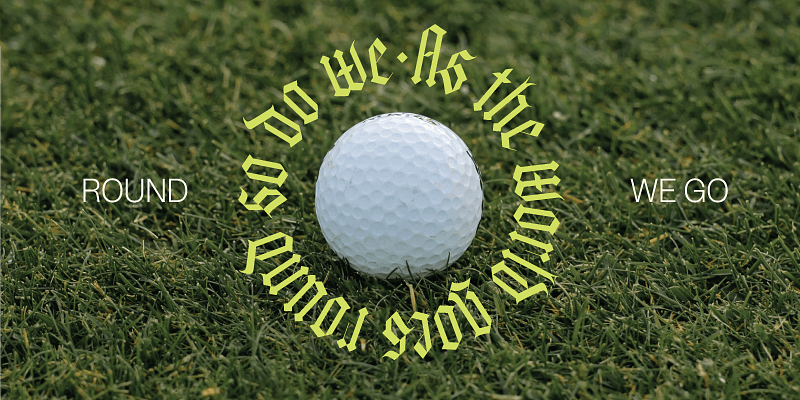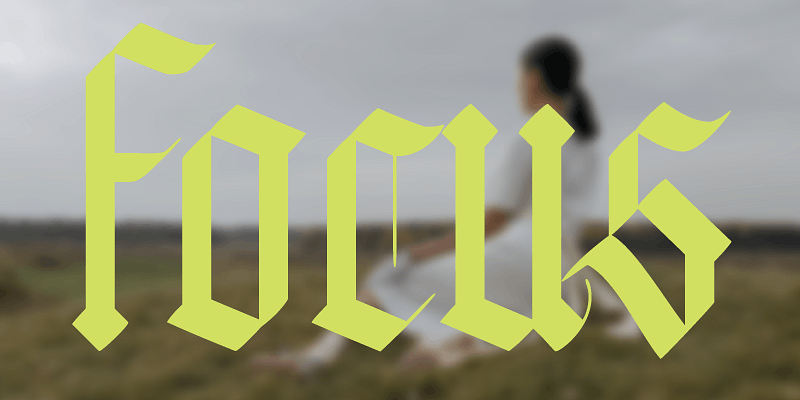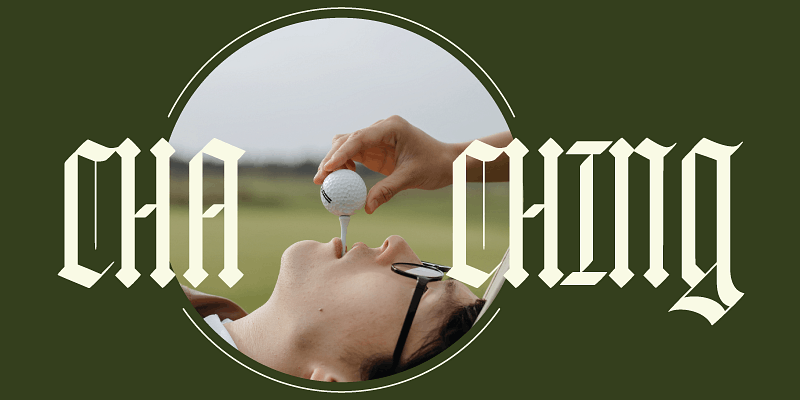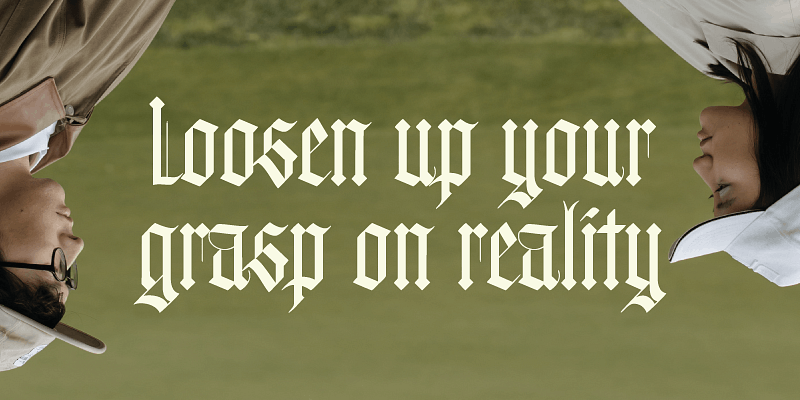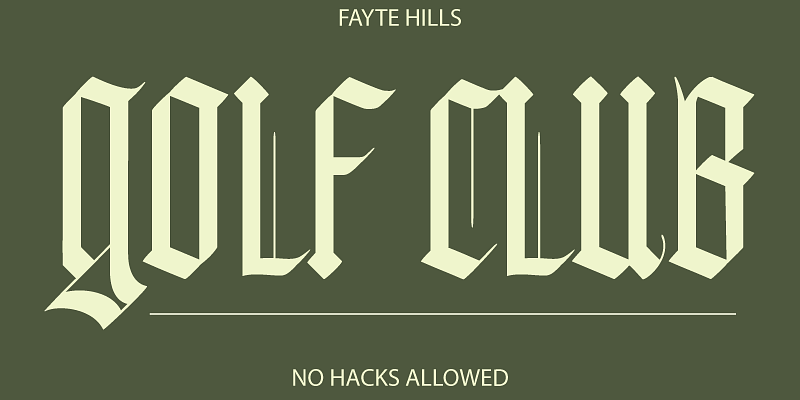
Fayte is a modern blackletter font that focuses on contemporary display type principles. This vintage-made new typeface is unmistakably blackletter, However, it is made more accessible with its tame capital letters.